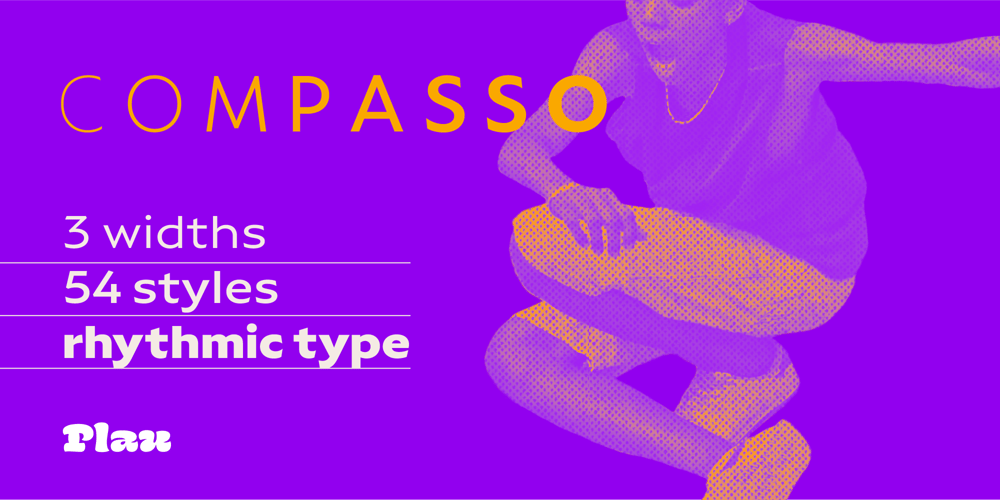
Compasso Font Family was designed by Rodrigo Saiani and published by Plau. Compasso contains 56 styles and family package options. The idea that mathematical precision and the supposed “purity” of geometric forms are part of the discourse of us graphic designers is not new. Studying typography for some time now and learning about all the small alterations and adjustments that this geometry undergoes to better adapt to the imperfect human eye, I found myself with a new way of seeing things.Compasso is, in a way, a result of my growth as a designer. Established and recognized fonts like Futura, Avenir, and their predecessors (including Tempo – published by the Ludlow foundry in the early 20th century) informed the result of Compasso at some level. Others opened my mind to possibilities. Mallory, Azo Sans, the font designed for Audi by Bold Monday, and many other contemporary sans-serif fonts that left me speechless are also responsible for details present in this font.From the first sketch, the family grew on both sides, gaining condensed and extended counterparts. From there – and from a brilliant insight from designer Nicole Rauen – I learned that Compasso was not about geometry. Compasso is about rhythm. It’s about the rhythmic movement that provides a foundation, supports, and also makes you dance and swing.My musical taste is too eclectic, I can go from classical to funk in less than two songs on Spotify. Compasso is also eclectic. It’s a font to take your project anywhere, a record to listen to on any occasion.